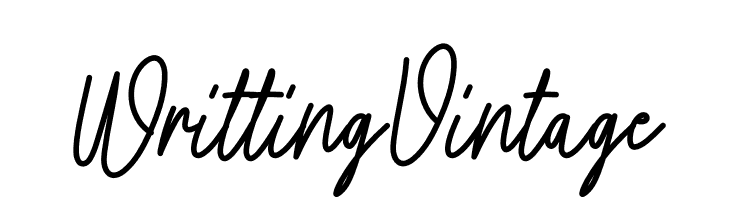
( Fonts by Nick Curtis - www.nicksfonts.com )
An ornate and decorative font with vintage-inspired flourishes.
( Fonts by Emerald City Fontwerks )
A bold, textured font with a vintage, handcrafted appearance.
( Fonts by http://perso.calixo.net/~uzim/ )
A vintage, typewriter-style font with a hand-drawn, monospaced design.
( Fonts by Graham Meade - GemFonts )
A distressed, vintage serif font with a textured, weathered appearance.
( Fonts by Dieter Steffmann )
A decorative, vintage-style font with ornate, high-contrast letter designs.
( Fonts by David Rakowski )
A distressed, grunge-style font with a textured, vintage appearance.
( Fonts by Patrick Broderick )
A vintage-style font with a distressed, letterpress appearance.
( Fonts by Nick Curtis - www.nicksfonts.com )
A bold, vintage-style font with thick strokes and sharp angles.
( Fonts by www.aenigmafonts.com )
A bold, distressed font with a rugged, aged appearance.
( Fonts by Nick Curtis - www.nicksfonts.com )
A vintage-inspired font with sharp serifs and art deco elements.
( Fonts by Nick Curtis - www.nicksfonts.com )
A bold, decorative font with a three-dimensional outline and vintage appeal.
( Fonts by Nick Curtis - www.nicksfonts.com )
A bold, vintage-style font with stencil-like cut-out elements.
( Fonts by Daniel Gauthier )
A bold, playful font with horizontal stripes and a vintage flair.
( Fonts by Andrew Hart - dirt2.com )
A bold, distressed font with a vintage, grunge aesthetic.
( Fonts by Nick Curtis - www.nicksfonts.com )
A bold, vintage-inspired serif font with strong, heavy strokes.
( Fonts by Paul Lloyd )
A bold, high-contrast serif font with a vintage and decorative style.
( Fonts by Klaus Johansen - www.listemageren.dK )